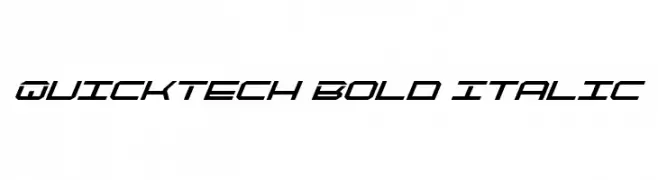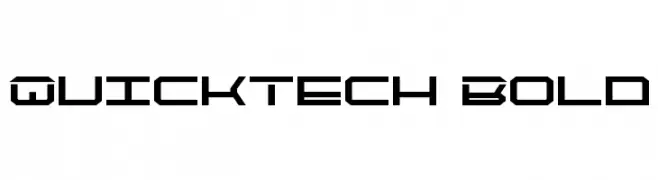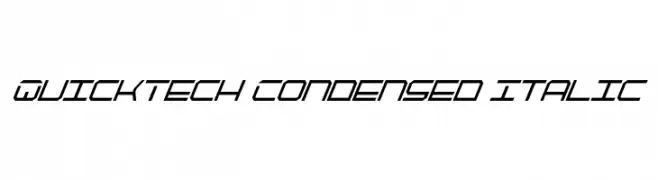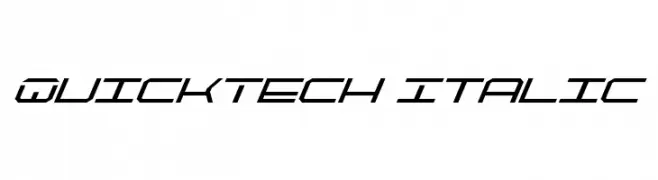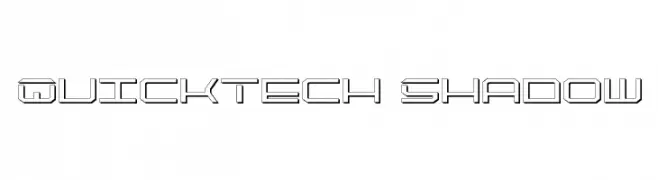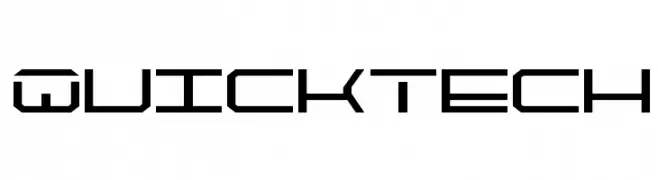
A modern, rounded geometric font with a clean and cohesive design.
A bold, italicized font with smooth, rounded edges and a modern look.
( Fonts by HyFont Studio )
A modern, monospaced font with a clean and geometric design.
( Fonts by HyFont Studio )
A modern, monospaced font with clean lines and excellent readability.
( Fonts by HyFont Studio )
A bold, monospaced typeface with a modern, geometric design.
( Fonts by Attype Studio - Fadli Ramadhan Iskandar - Personal-use only. For commercial use please contact owner. )
A geometric, monospaced font with a modern and technical style.
( Fonts by Budi Purwito - Personal-use only. For commercial use please contact owner. )
A circuit board-inspired font with a futuristic, technical design.
( Fonts by Chris Simpkins - Personal-use only. For commercial use please contact owner. )
A modern, monospaced font ideal for coding and technical documentation.
( Fonts by Michael Hassler - Personal-use only. For commercial use please contact owner. )
A geometric, technical font with clean lines and sharp angles, ideal for architectural and technical designs.
( Fonts by Typodermic Fonts - Raymond Larabie - Personal-use only. For commercial use please contact owner. )
A modern, geometric sans-serif font with clean lines and a technical look.
( Fonts by Typodermic Fonts - Raymond Larabie - Personal-use only. For commercial use please contact owner. )
A geometric, monospaced font with a modern and technical design.
( Fonts by ingoFonts - Ingo Zimmermann - Personal-use only. For commercial use please contact owner. )
A geometric, angular font with a modern and technical style.
( Fonts by Mozilla )
A modern, monospaced font perfect for coding and technical documents.
( Fonts by Carrois Type Design / Ralph du Carrois )
A modern, geometric sans-serif font with clean lines and rounded edges.
( Fonts by HyFont Studio - www.hyfont.com - Personal-use only. For commercial use please contact owner. )
A dot matrix font with a digital, pixelated design.
( Fonts by Tom Robin Karlsson - tomrobin.co - Personal-use only. For commercial use please contact owner. )
A bold, monospaced font with a modern and technical style.